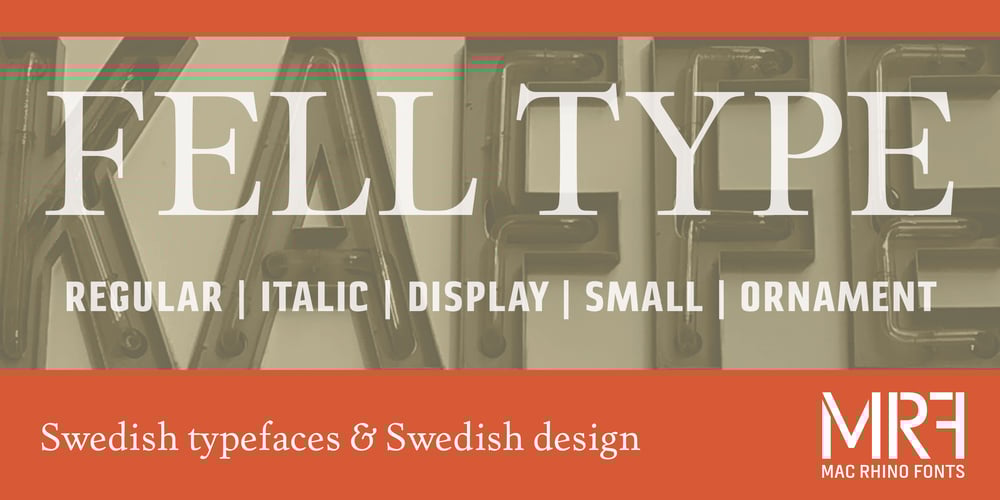
Fell Type Premium
Fell Type Premium font
Fell Type Premium Font Family was designed by Stefan Hattenbach, Johan Ström and published by MAC Rhino Fonts. Fell Type Premium contains 5 styles and family package options. A new take on the classic typeface used at Oxford University Press. Carefully crafted from original sources and updated for the modern times. Size specific weights and meant to act as a work horse for longer texts. A joint venture between Stefan Hattenbach and Johan Ström.